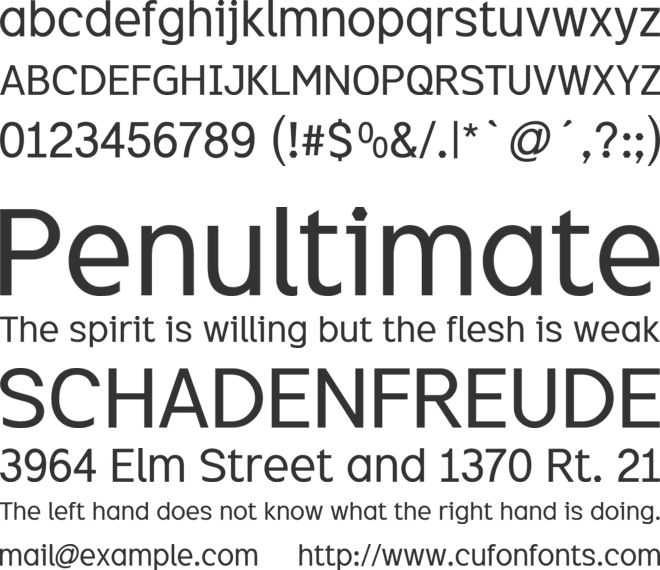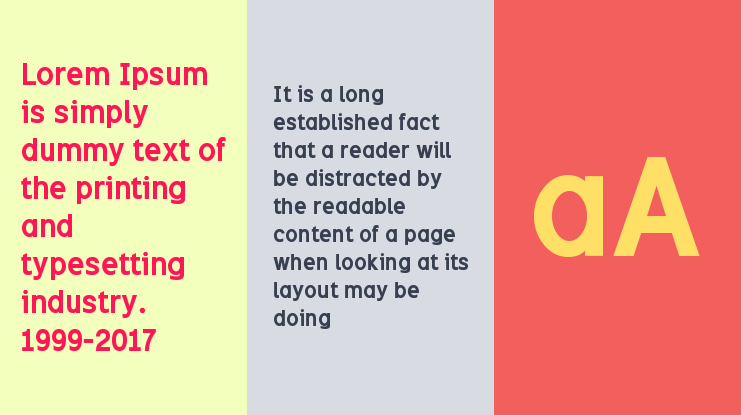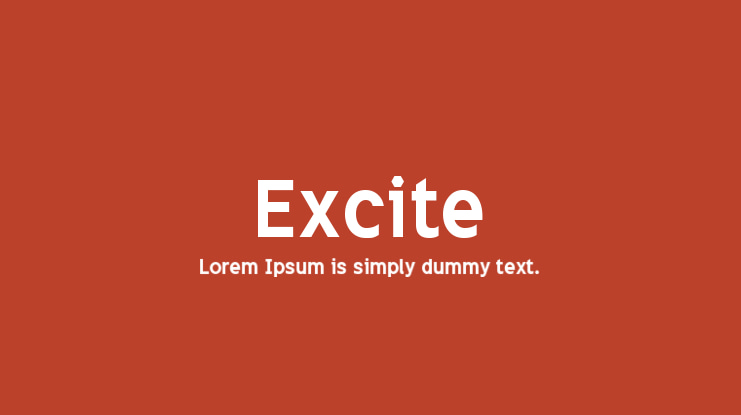
Excite Font Family
Excite is a neo-grotesque typeface named after an x-height that’s as tall as you can get without compromising the distinction between upper and lower case, helping to make it extremely readable both in print and on screen. It is modern and spacious, has short ascenders and descenders, and an airiness augmented by using both horizontal and vertical endings of open characters like C, S and 3. Unusually for a neo-grotesque, Excite has a clean, contemporary, single storey lowercase A. Other distinctive features include a hexagonal dot/period, and the dog-leg tail of the Q. To avoid confusion between similar characters, Excite uses features like horizontal bars on the capital i and a curved tail on the lowercase L.
The Excite family consists of four fonts: regular, bold, italic and bold italic.